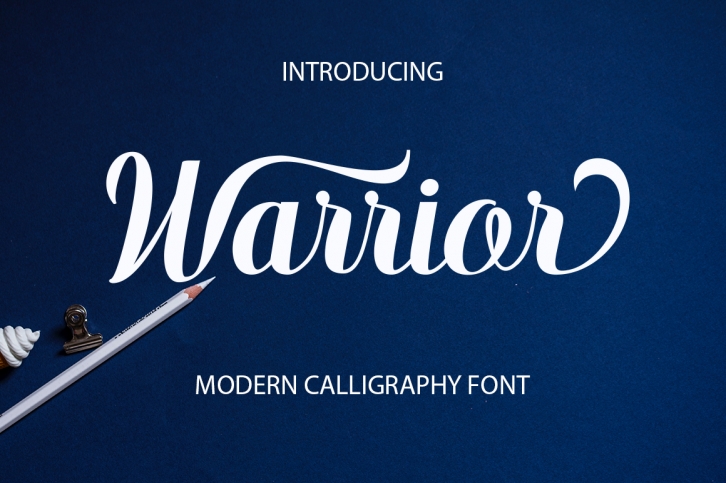
Warrior Script is a great font that was designed by Typehill. Imagine the amount of combinations you can create using this font! The archive is 16.67 MB and it was released on September 23, 2019. Warrior Script looks beautiful on wedding invitations, greeting cards, logos, posters, labels, t-shirt designs, logos, business cards and is perfect for use in ink or watercolor works, fashion, magazines, packaging and food menus, children's books and more!